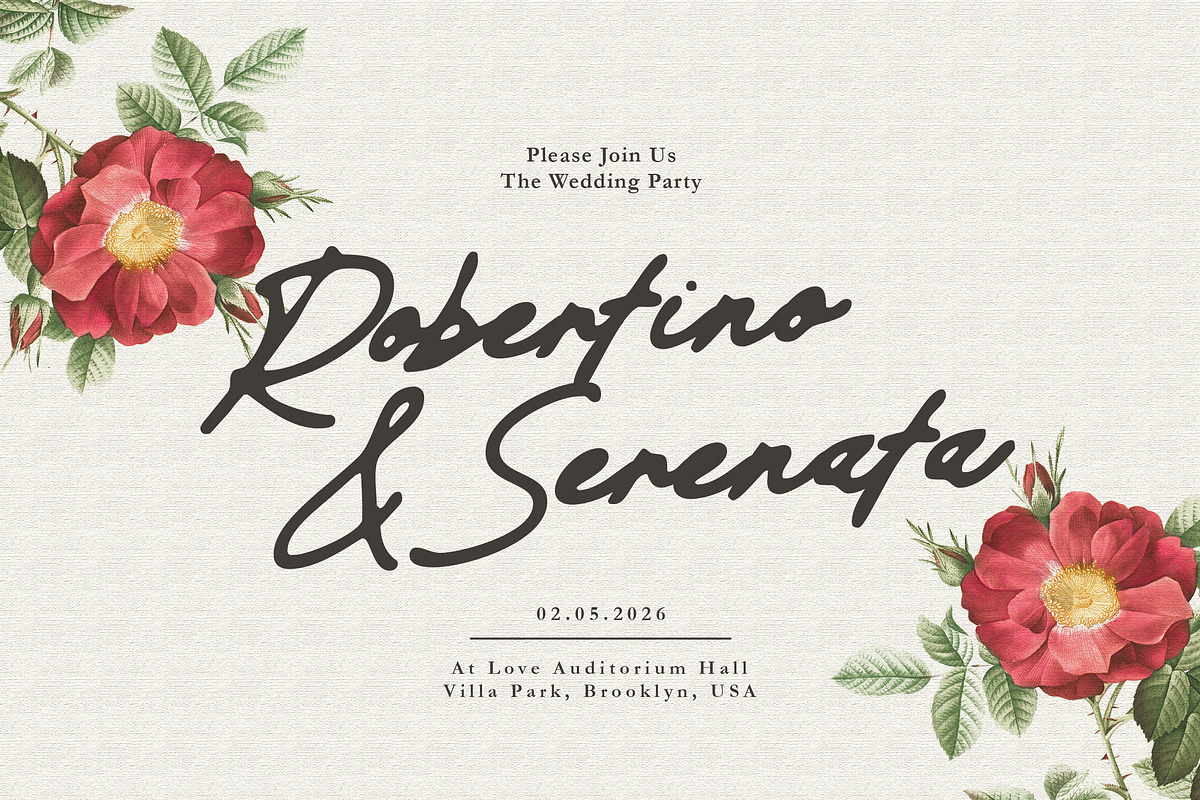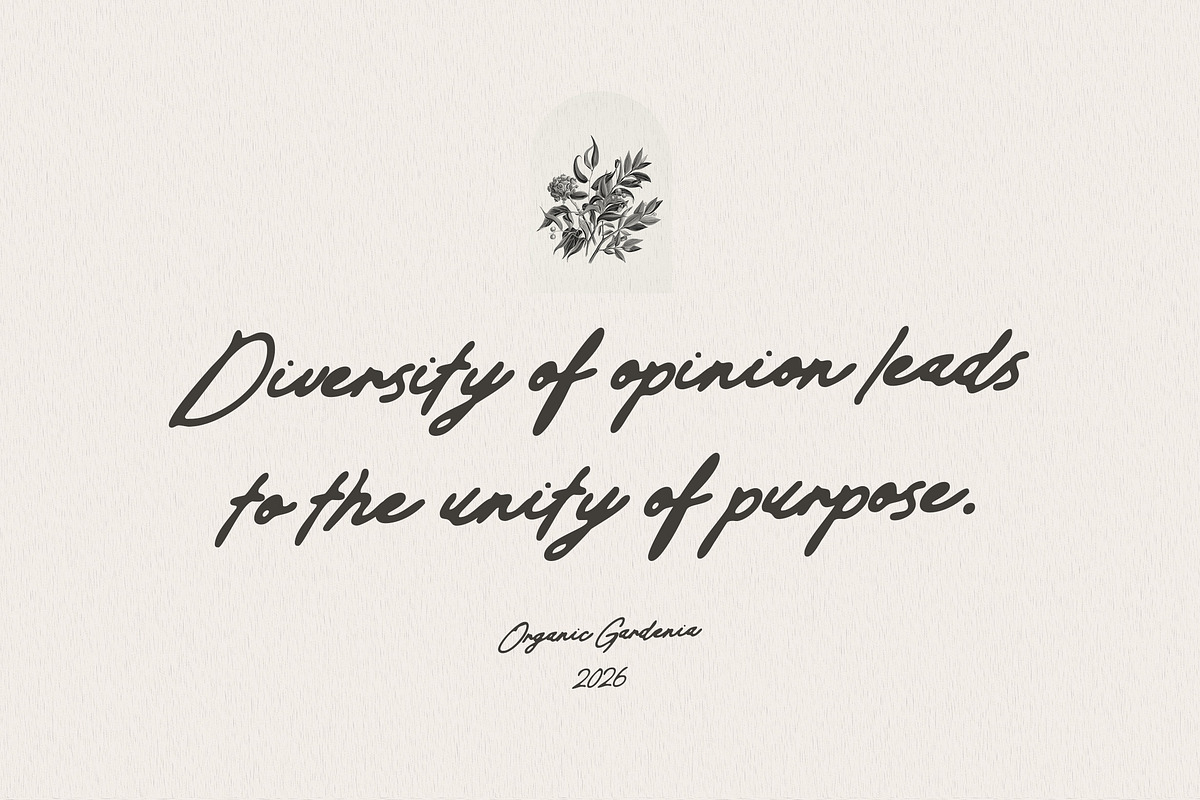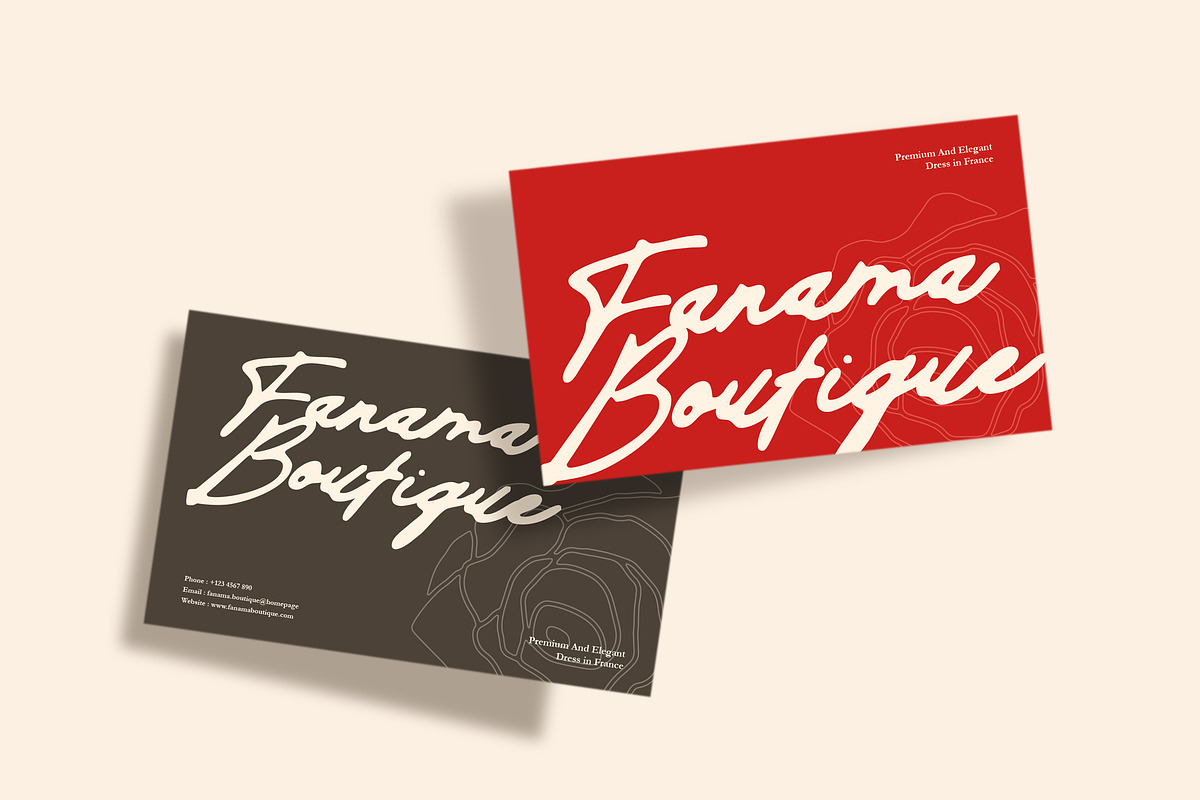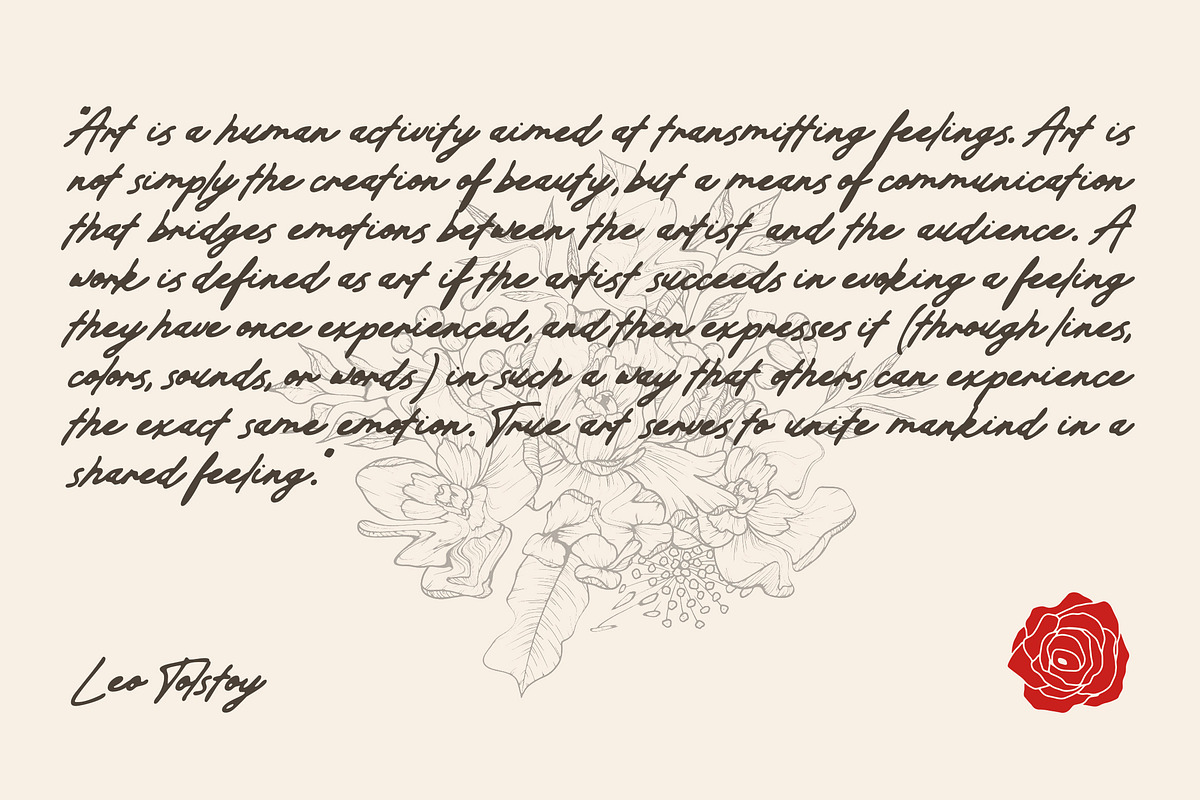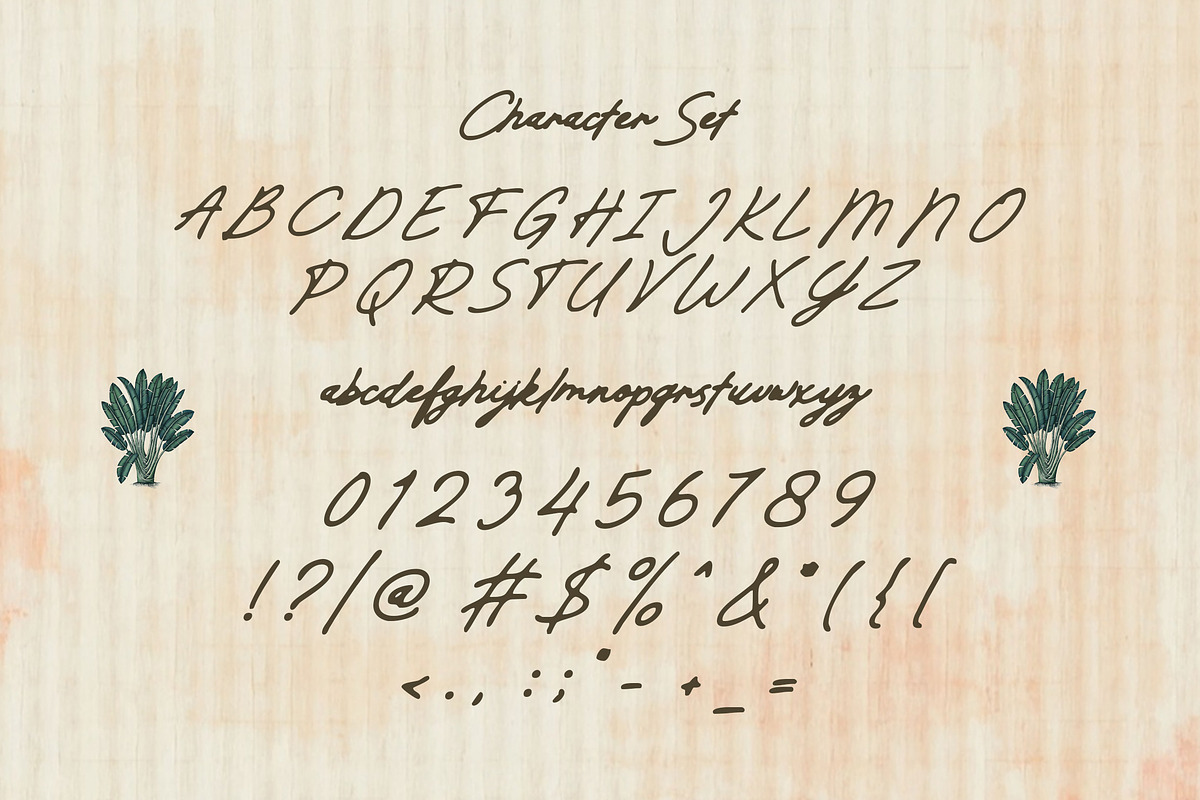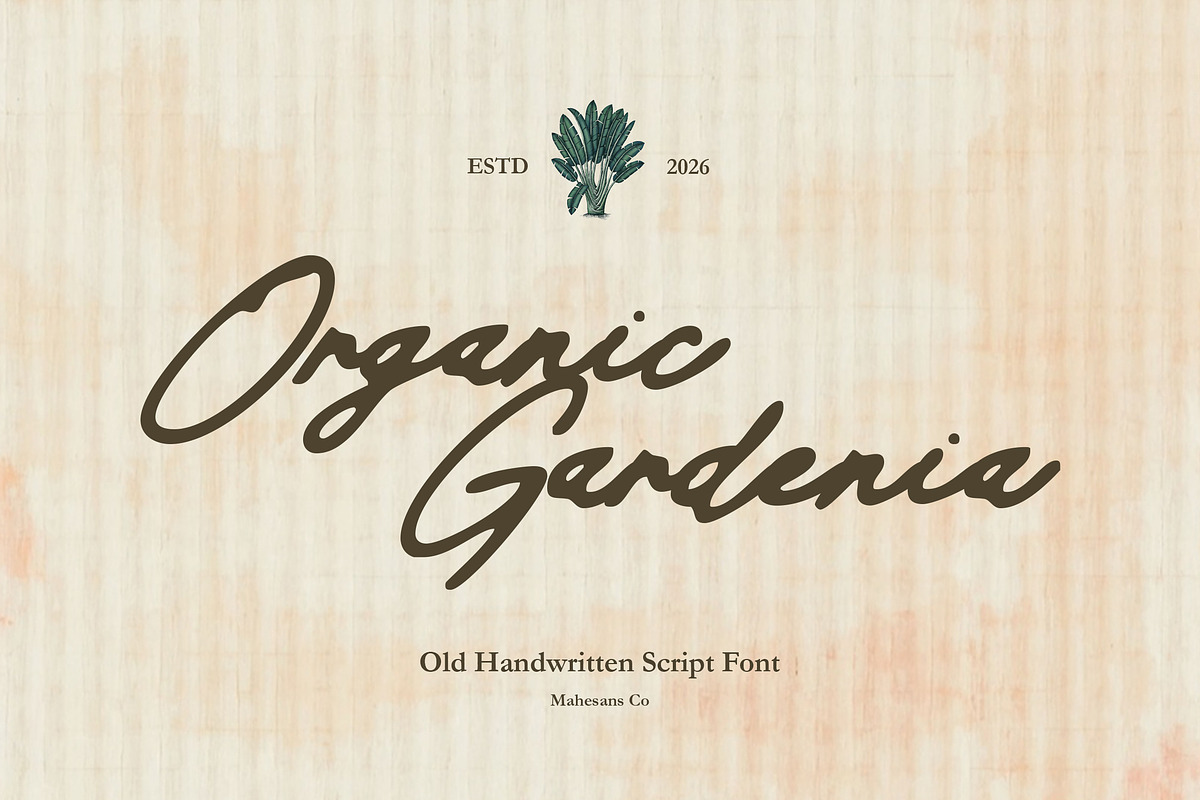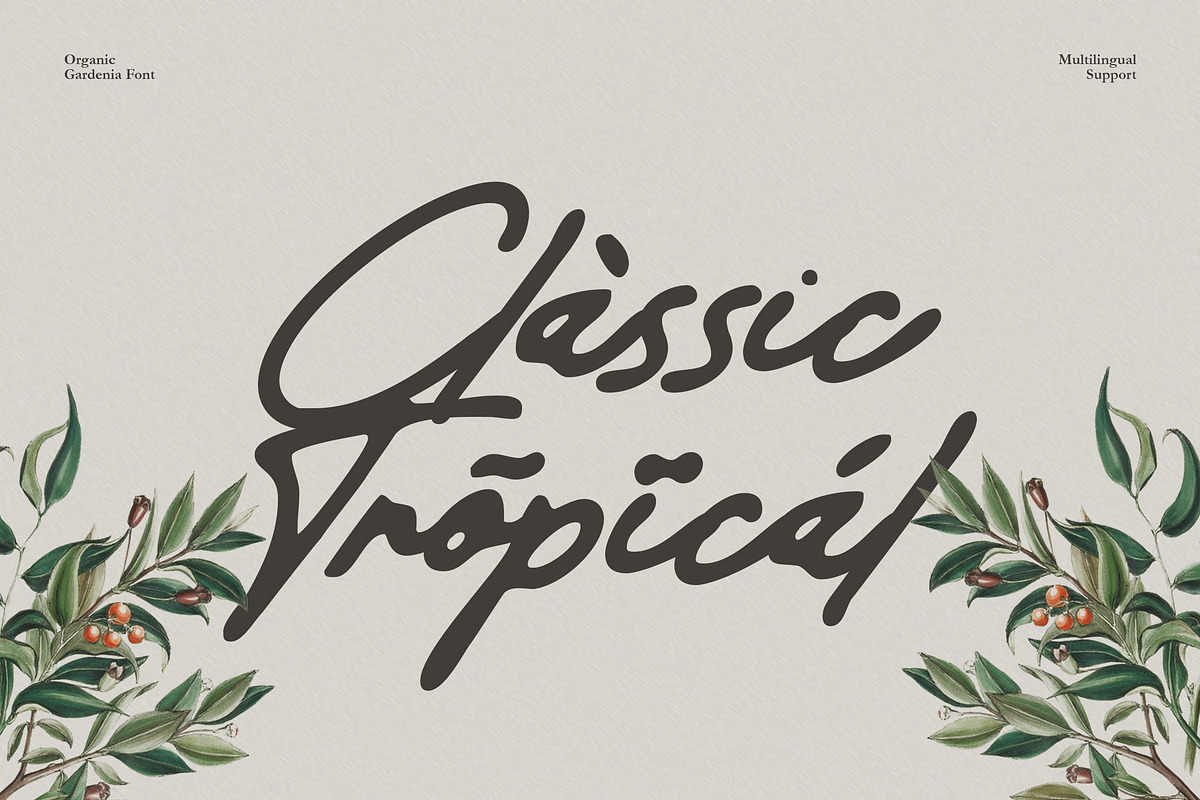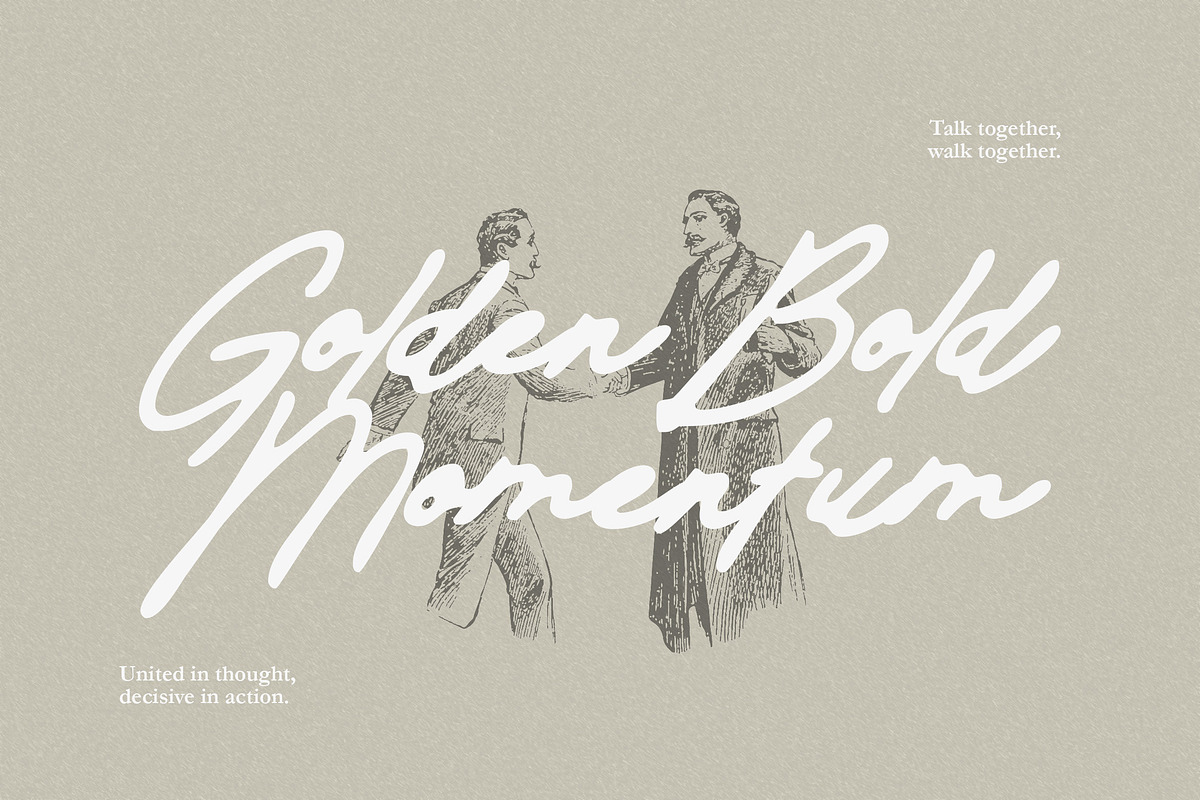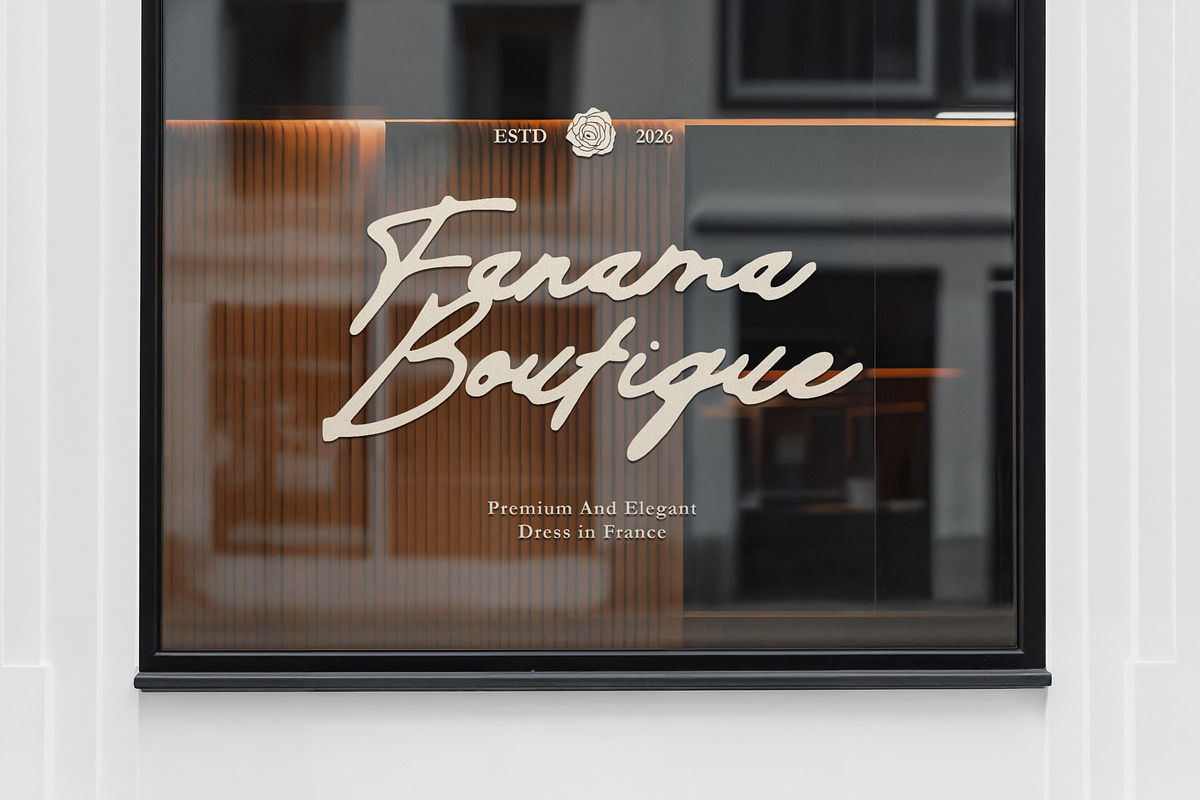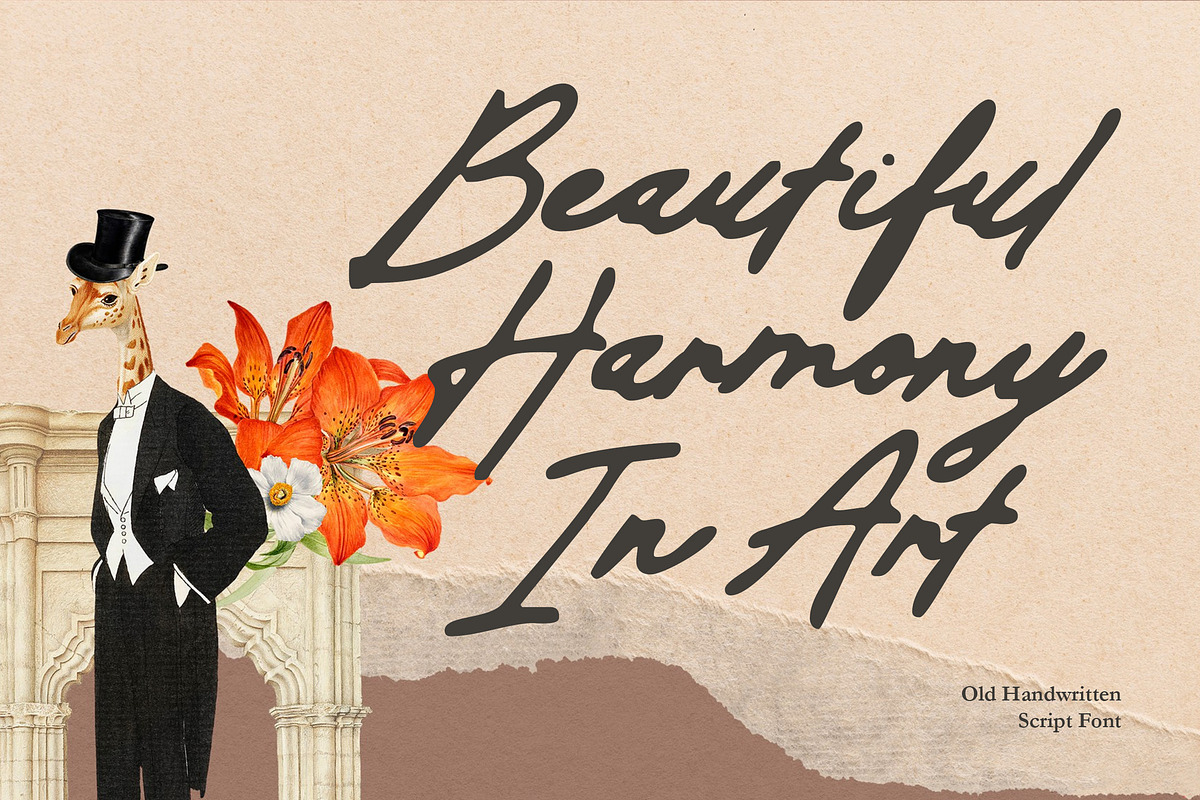
Organic Gardenia - Old Handwritten
Organic Gardenia, a unique and carefully crafted handwritten script font from Mahesans Co.
Perfect for projects that crave a sophisticated, down-to-earth aesthetic, this font captures the raw, flowy nature of real ink on paper. Organic Gardenia is more than just a typeface; it’s a brushstroke of authenticity for your creative work.
Organic Gardenia add the warm, authentic, and "perfectly imperfect" touch of hand-drawn script to your designs. Discover the difference true organic script can make.
- Branding & Identity
- Event Stationery
- Product Packaging
- Social Media Graphics
- Book & Magazine Covers
- Advertising & Marketing Materials
- Multilanguage